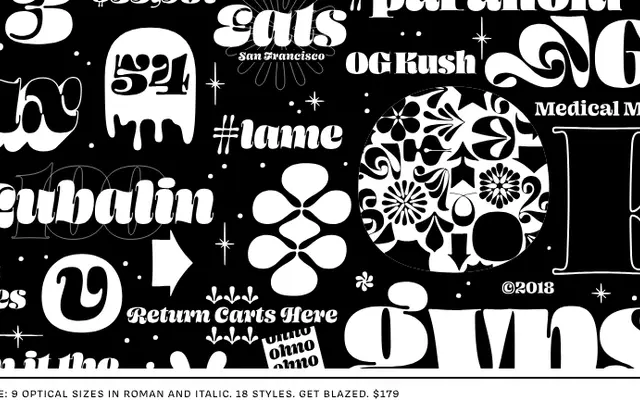
Ohno Blazeface specimen from OH no Type
A nine-optical-size fatface serif that pushes the genre by minimising internal whitespace and finding unconventional solutions for letters that typically defeat the style.
Where most fatfaces leave awkward voids in letters like f, x and z, Blazeface takes an unorthodox approach to each, filling positive space as aggressively as possible. Nine optical sizes run from 12pt through to 72pt, each available in Roman and Italic, with the italic adding teardrop-terminated hairlines that give words a pronounced roundness. A full set of ornaments, arrows, fractions and snowflakes accompanies the 18 styles.
A fatface display serif with extreme stroke contrast, sitting firmly in the display/fatface tradition but deliberately redrawn to minimise internal whitespace and push problematic letterforms into unconventional solutions.
Ohno Blazeface Italic